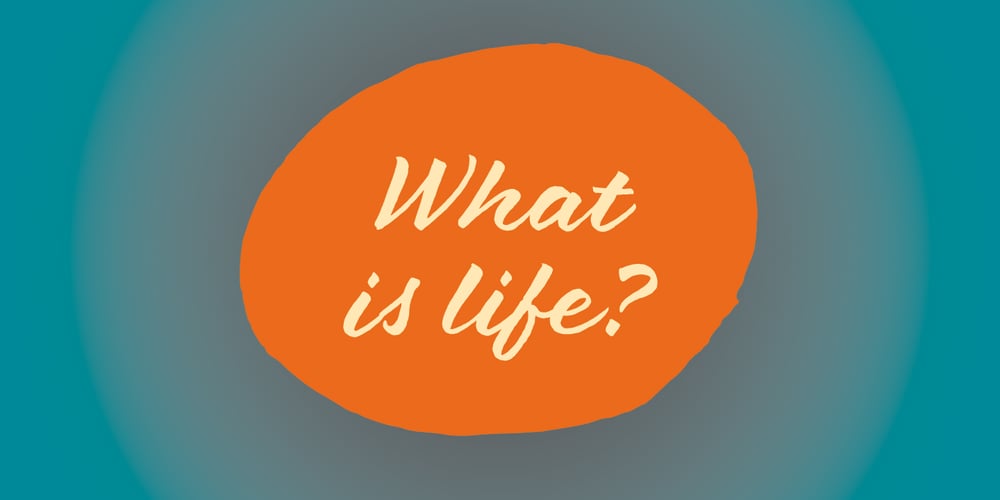
Brushland Font Family was designed by Laura Meseguer and published by Type-Ø-Tones. Brushland contains 1 styles and family package options. Brushland was initially born as custom type project, where the goal was to achieve a natural feeling as if it was really written. The project raised some questions, how natural should be this script typeface? How to simulate this writing feeling? For this, four different glyphs were drawn for the same character. This “Feature” or “Behavior”, programmed in the font, combines the variants in the sequence of 1, 2, 3 & 4 and replaces the letters at the time the words are composed, in order to avoid the repetition of glyphs. Through the “Contextual Alternates” OT Feature, the user can decide if they appear or not.